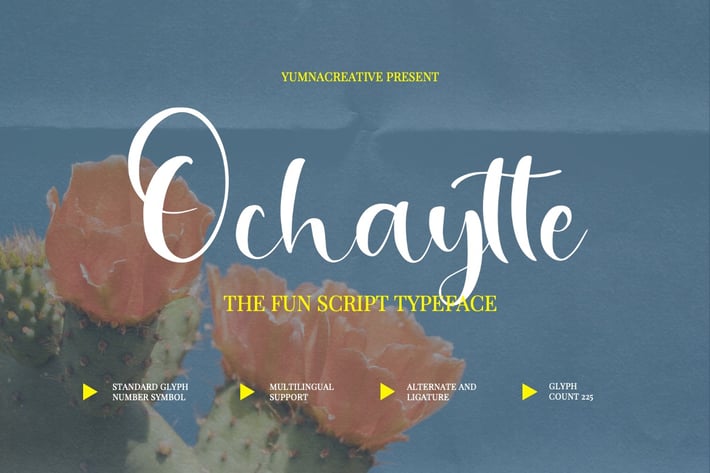
Ochaytte - Fun Script Font
Introducing Ochaytte - Fun Script Font
This Font is a delicate, elegant and flowing handwritten font. It has beautiful and well as a unique blend of ligatures a letter, so that the authors compose it with a and little swirly embedding, so that a modern font is formed and ready to make a statement by adding elegant and unique flair to your next design project. Add it to your most creative ideas and notice how it makes them come alive!
• Uppercase & Lowercase
• Ligature
• Numbering & Punctuation
• Multilingual Supports